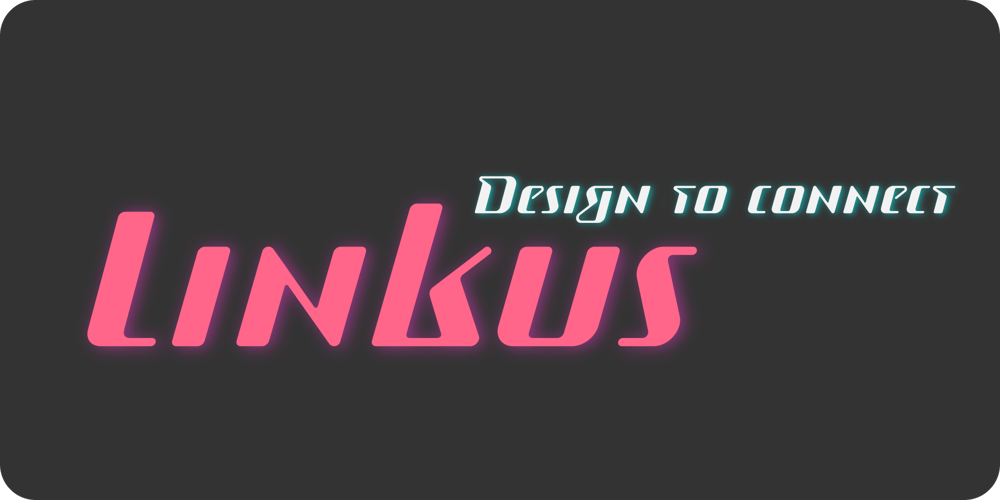
Linkus Font Family was designed by João Henrique Lopes and published by João Henrique Lopes. Linkus contains 2 styles and family package options. The name ‘Linkus’ makes reference to the internet and its power to unite humanity, as well as to Linkus’ distinctive design, where the whole character is unified by a single, unbroken line – without sacrificing its elegance and readability. Linkus is based on the aesthetic decision of having a single, unsplit line forming every character, with a smooth transition of the different line directions, in order to strenghten the unity of form and create a singular fluxus throughout the glyph. Different from most other futuristic fonts (e.g. Slazer), who have an aggressive look, Linkus has a more sensible, refined aura.This display futuristic typeface is meant to be used whenever the subject is technology, cellphones, electronics, internet, computers or science in general, as Linkus creates a feeling of modernity, cleanness, efficiency and high-tech sophistication.